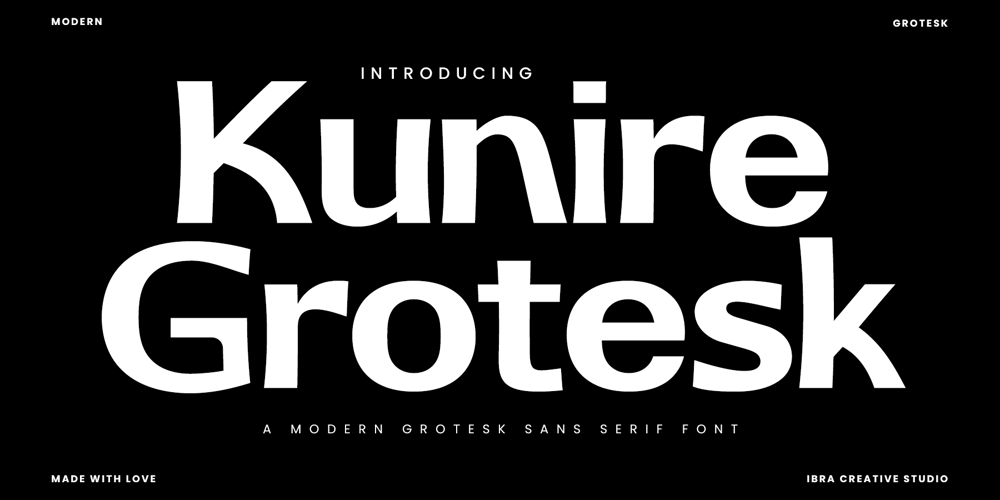
Kunire Grotesk Font Family was designed by Roisatul Azizah and published by IbraCreative. Kunire Grotesk contains 1 styles and family package options. Kunire Grotesk – A Modern Grostesk Sans Serif FontKunire Grotesk is a contemporary sans-serif font that seamlessly blends classic grotesque design elements with a modern twist. Exhibiting a refined balance between simplicity and intricacy, Kunire Grotesk features clean lines, geometric shapes, and a distinctive grotesque aesthetic that exudes a sense of sophistication. The font’s letterforms are characterized by their sharp, angular terminals and well-defined strokes, lending a crisp and professional appearance to any text. With a versatile range of weights and styles, Kunire Grotesk caters to diverse design needs, from editorial layouts to branding and digital applications, making it a go-to choice for those seeking a harmonious fusion of timeless elegance and contemporary flair in their typographic endeavors.Kunire Grotesk is perfect for branding projects, logo, wedding designs, social media posts, advertisements, product packaging, product designs, label, photography, watermark, invitation, stationery, game, fashion and any projects.Fonts include multilingual support for; Afrikaans, Albanian, Czech, Danish, Dutch, English, Estonian, Finnish, French, German, Hungarian, Italian, Latvian, Lithuanian, Norwegian, Polish, Portuguese, Slovak, Slovenian, Spanish, Swedish.